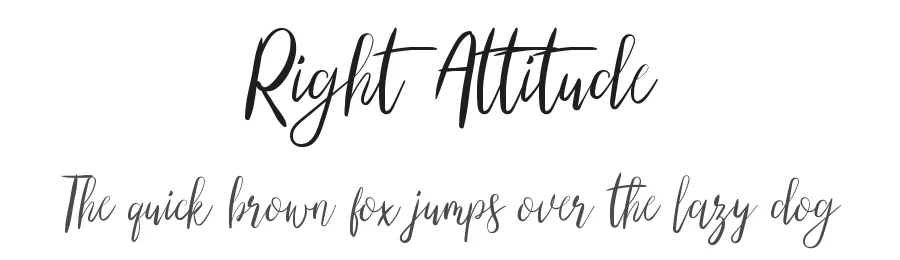
About Sechillia Ruster Font
Sechillia Ruster - Handwritten Font. Made from natural pen.
it will make your design project more beautiful.
The font is suitable for any design like branding, fashion,
print template, quotes, wedding and etc.
Sechillia Ruster Font